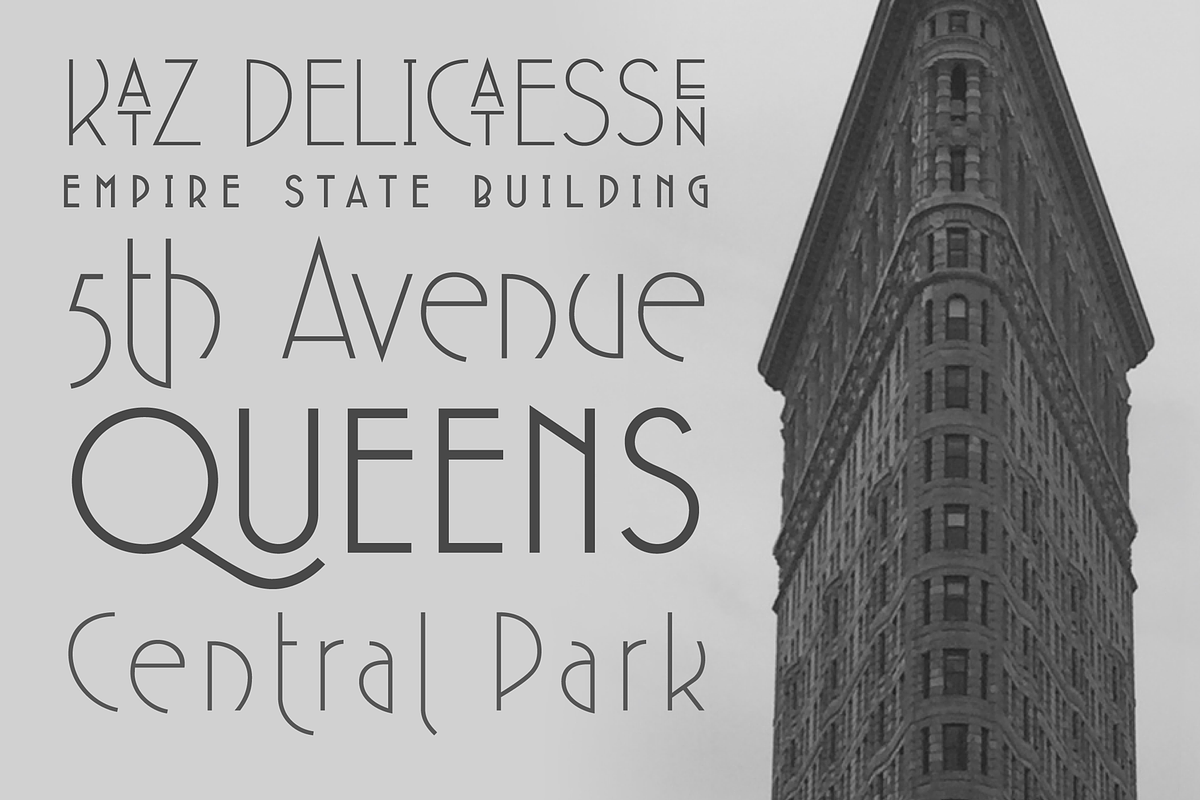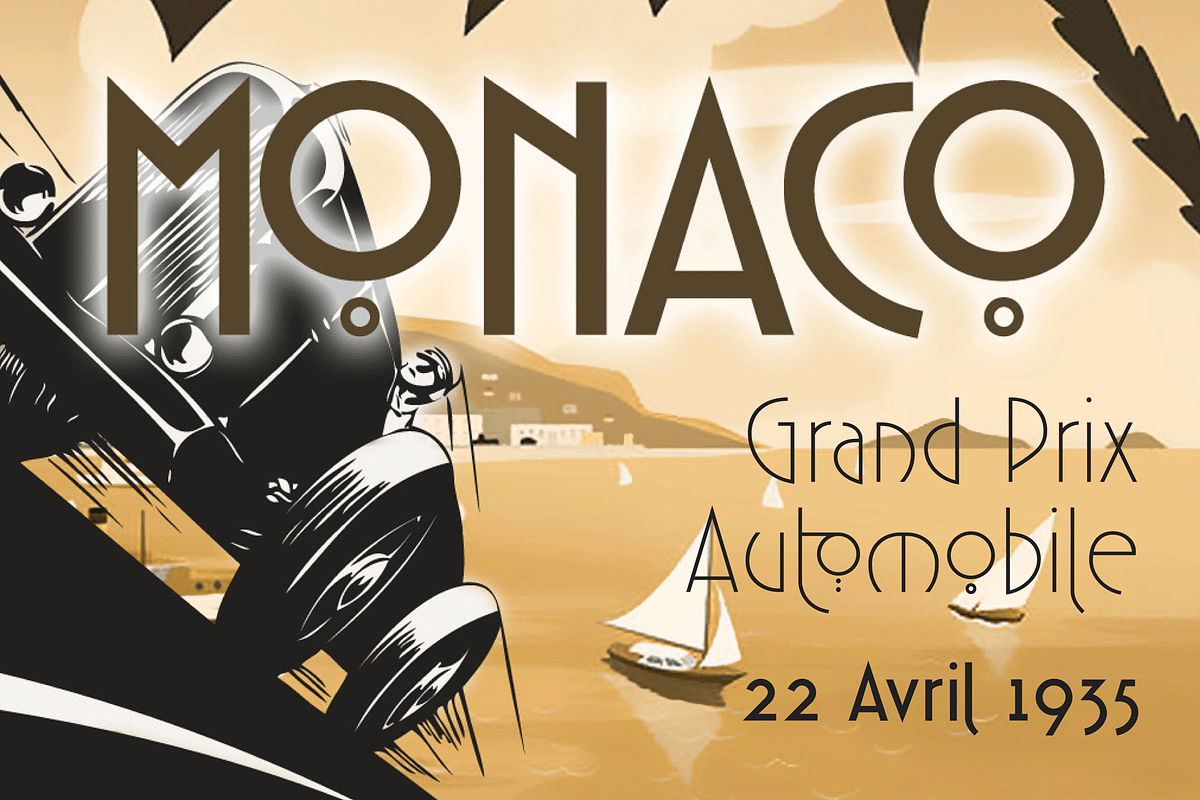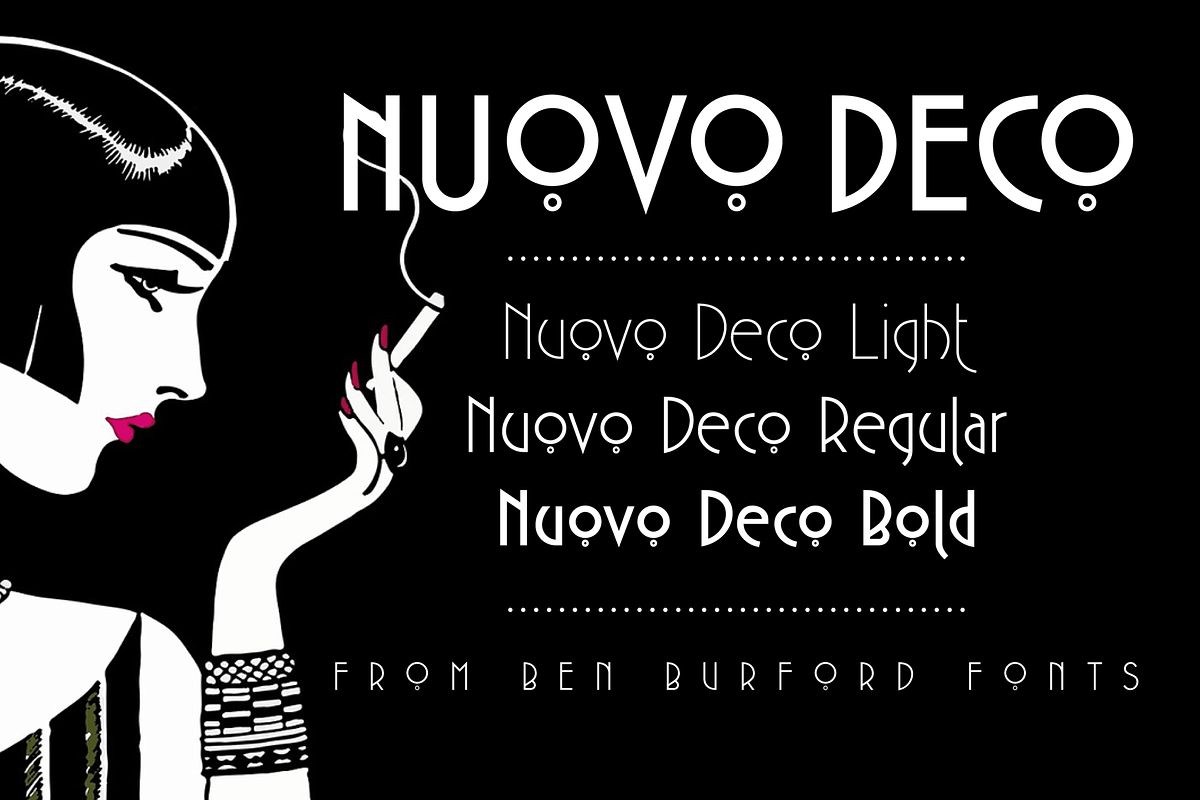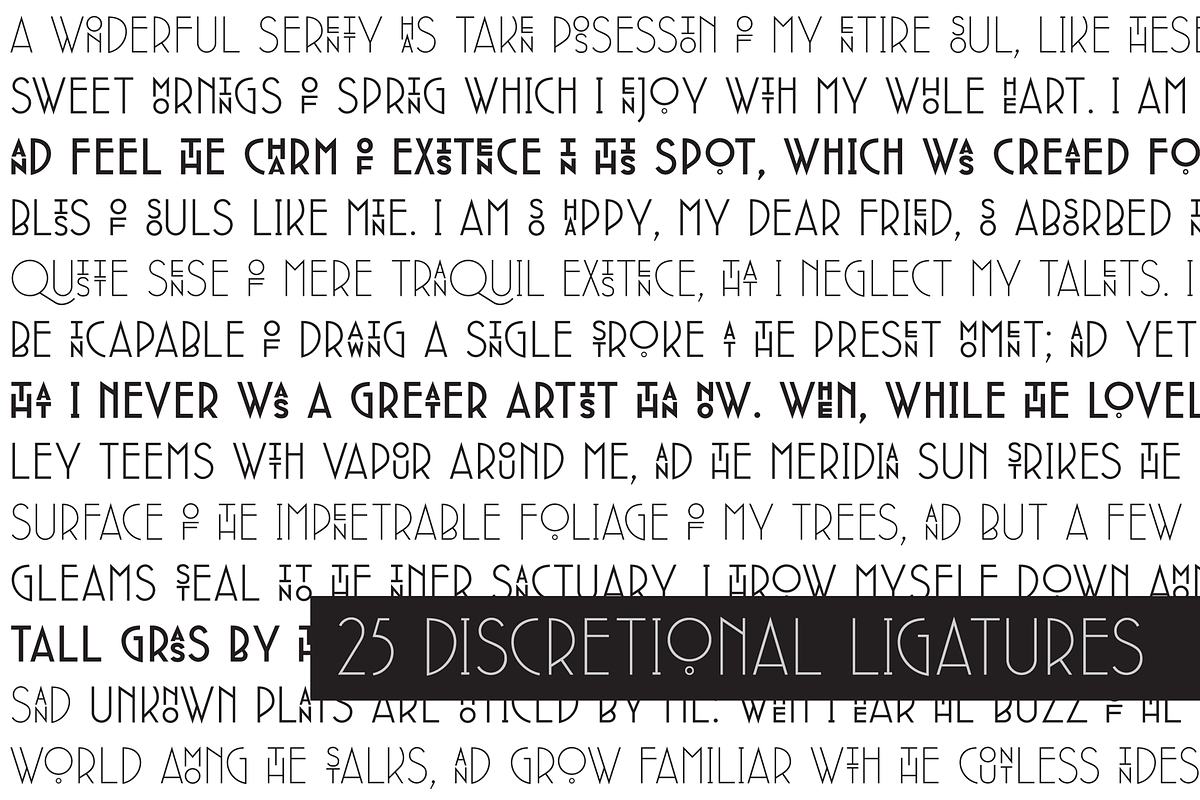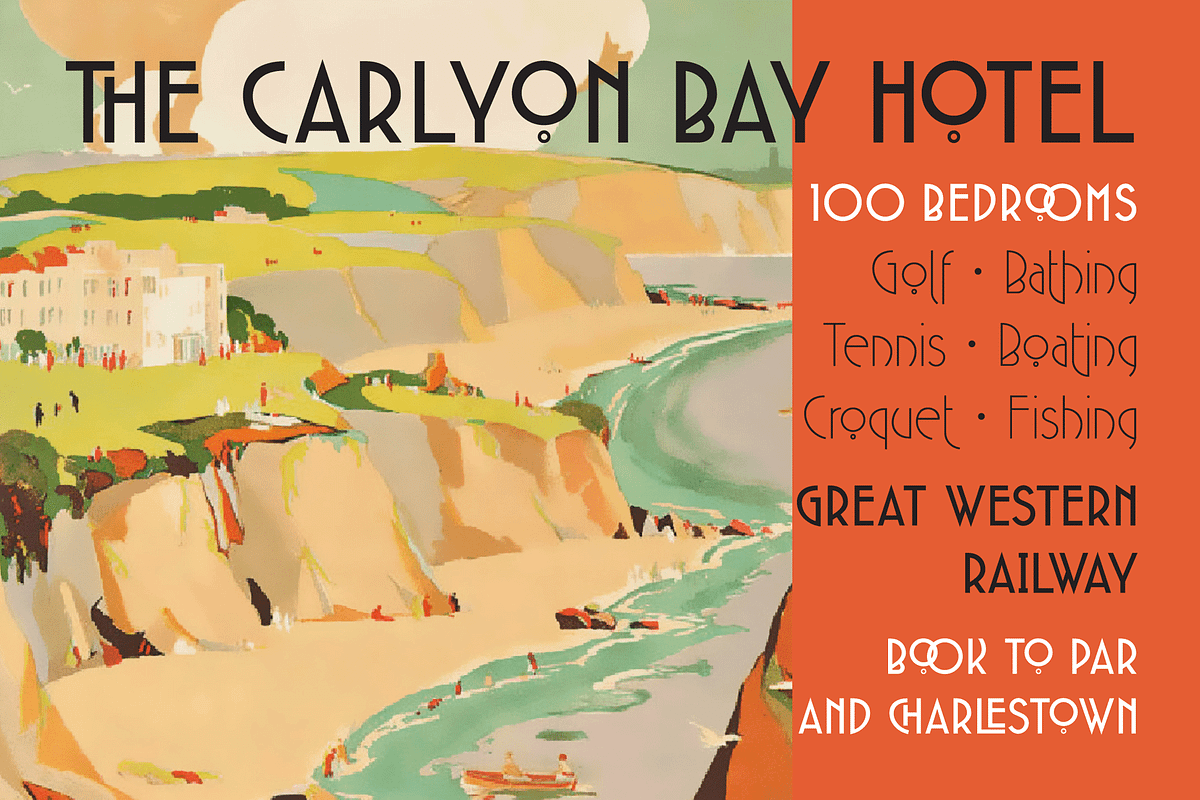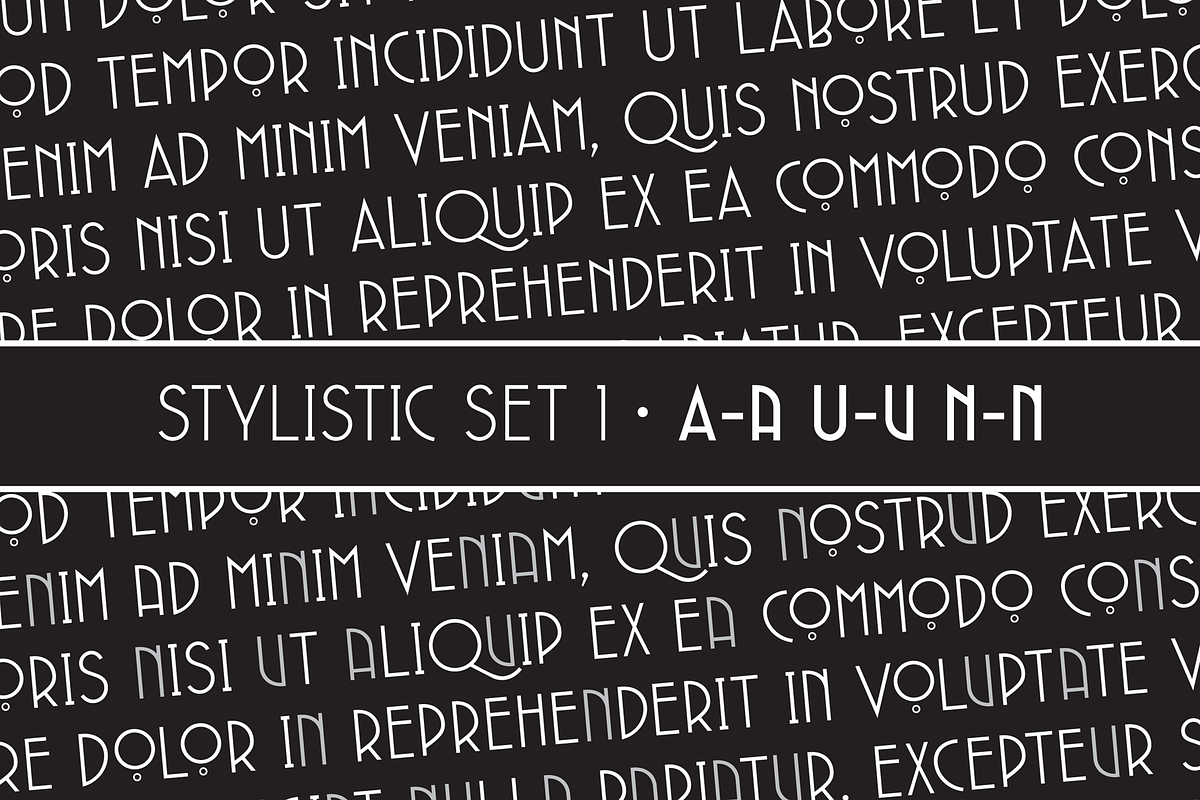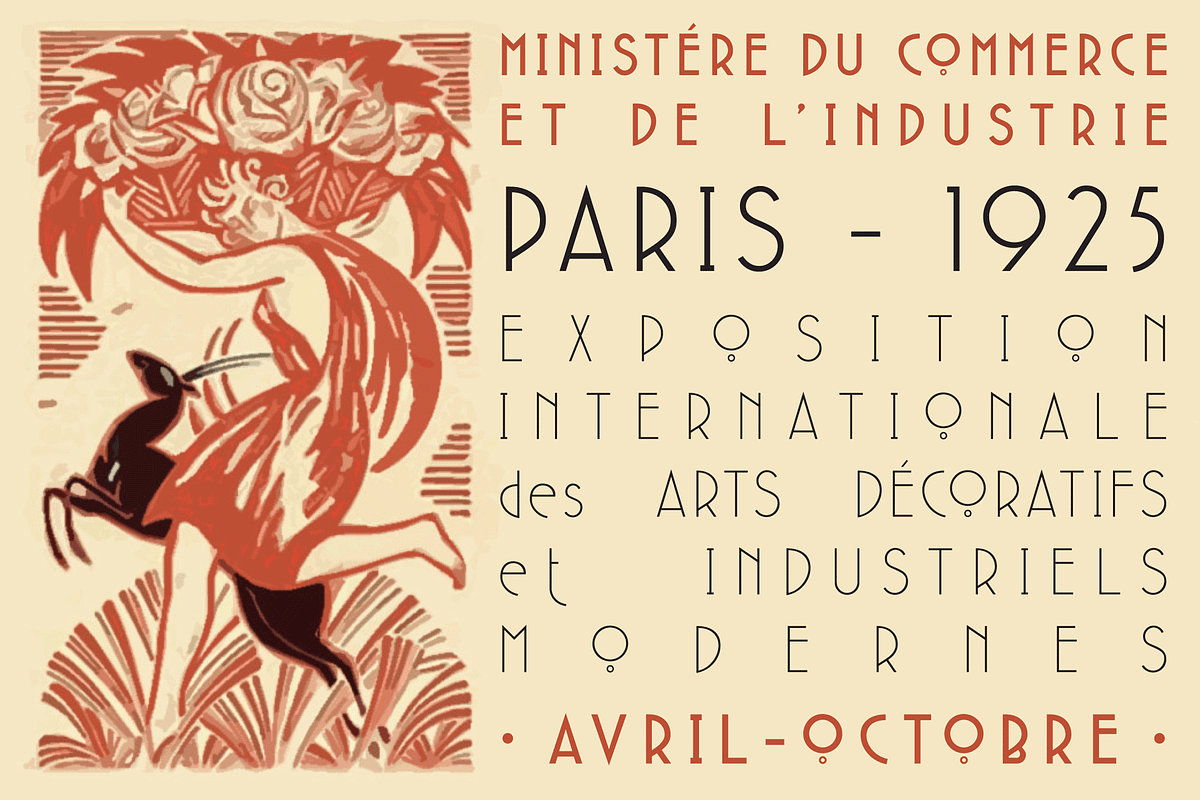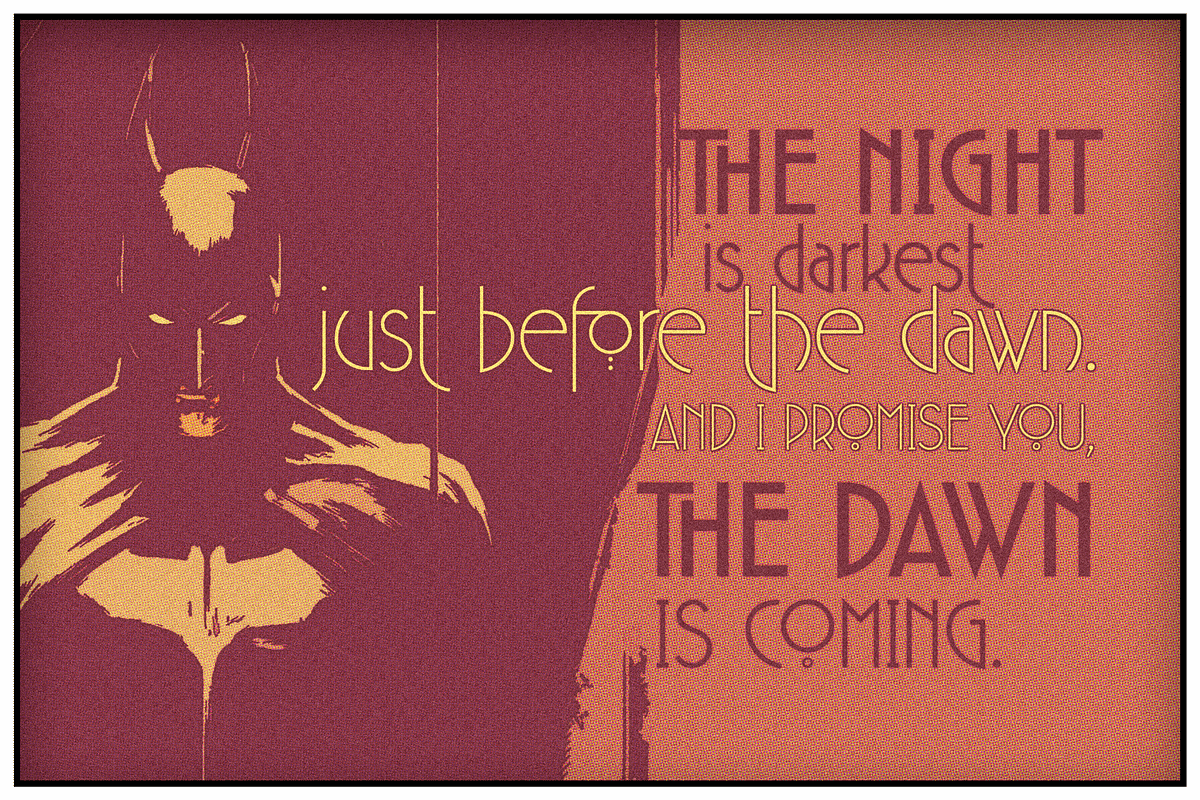
Nuovo Deco
Following from the continued popularity of the original MB Deco. Here is its new and improved big brother. Nuovo Deco comes in three weights, Light, Regular and Bold. A full character set of Caps and lower case letters, alternate characters plus, some very nice Ligatures to give some added art deco style and a much wider scope.
- A full character set of Caps and lower case letters, alternate characters plus, some very nice Ligatures to give some added art deco style a
- Nuovo Deco Light
- Nuovo Deco Regular
- Nuovo Deco Bold
Nuovo Deco by Ben Burford Fonts fits naturally into Branding, posters, packaging, typography.